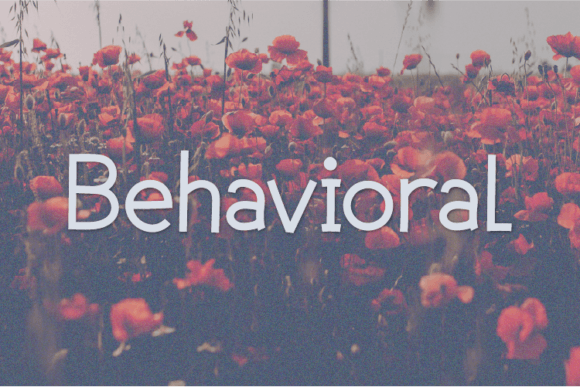
The Perfect Blend of Style and Function: Behavioral Font
Have you ever stared at a blank page, pen in hand, waiting for that spark of creativity to strike? It’s a feeling we’ve all been there, designers and non-designers alike. And when it finally does, it’s like the whole world opens up. For me, that moment came when I discovered the Behavioral Font – a beautiful sans serif font that has been the game-changer in my design projects.
Behavioral Font is more than just a font – it’s a versatile tool that can elevate any design from ordinary to extraordinary. Whether you’re creating logos, quotes, T-shirts, greeting cards, or business cards, this font is sure to make your designs stand out. As a designer, you know how crucial the right font can be in making your vision a reality. That’s why Behavioral Font is an invaluable addition to any designer’s toolkit.
Behavioral Font Key Features
- Font Family: Behavioral Font comes in 4 font styles: Behavioral Regular, Behavioral Italic, Behavioral Bold, and Behavioral Bold Italic.
- Character Count: Behavioral Font has a total of 230 characters, including uppercase and lowercase letters, numbers, and punctuation marks.
- Resolution: Designed to be used at high resolutions (up to 1200 DPI) for optimal legibility and clarity.
- Unique Characteristics: Behavioral Font features a unique blend of modern and vintage elements, making it suitable for various design applications, including branding, advertising, and editorial content.
- Size: Behavioral Font supports a wide range of font sizes, from 8 to 72 points, allowing for flexibility in design and layout.
Design Review: Behavioral Font
Overall, Behavioral Font is an interesting and unique font choice that can add a touch of personality to digital products. ✨ Its quirky design elements, such as the rounded edges and varied line weights, can help to create a sense of friendliness and approachability. The font’s bold and playful feel makes it perfect for use in headings and titles.
One of the things I like about Behavioral Font is its versatility. It can be used in a variety of contexts, from digital signage to branding materials, and still maintain its visual appeal. ✨ The font’s large x-height and open counters also make it highly legible, even at smaller font sizes.
However, there are a few limitations to consider when using Behavioral Font. ⚠️ For one, the font can be a bit too playful for more formal or professional applications. It may not be the best choice for use in financial or medical contexts, for example. Additionally, the font’s irregular letterforms can make it difficult to read at very small font sizes.
Conclusion
- Useful for: Digital signage, branding materials, and other applications where a friendly and approachable tone is desired.
- Not recommended for: Formal or professional applications, such as financial or medical contexts.
Overall, Behavioral Font is a fun and unique font choice that can add a touch of personality to digital products. While it may not be the best choice for every application, it can be a great addition to a designer’s toolkit when used thoughtfully.
Behavioral Font is a versatile font that can be used in a variety of contexts, including:
- Body text
- Infographics
- Presentations
Some tips for getting the most out of Behavioral Font include:
- Using it in conjunction with other fonts to create a unique and eye-catching design.
- Experimenting with different font sizes and colors to achieve the
Designing with Alternative Fonts for Behavior
Sans Serif Font
A sans serif font is a clean and simple font that is easy to read. It is ideal for displaying information in a clear and concise manner. Sans serif fonts are great for digital products, such as websites and mobile apps, where readability is crucial. Compared to Behavioral Font, sans serif fonts are more neutral and do not convey a specific emotion or personality.
How do I ensure that my Behavioral Font is accessible?
To ensure that your Behavioral Font is accessible, you should follow standard accessibility guidelines, such as the Web Content Accessibility Guidelines (WCAG). This includes ensuring that the font is legible at different sizes, colors, and backgrounds, and that it can be read by screen readers and other assistive technologies.